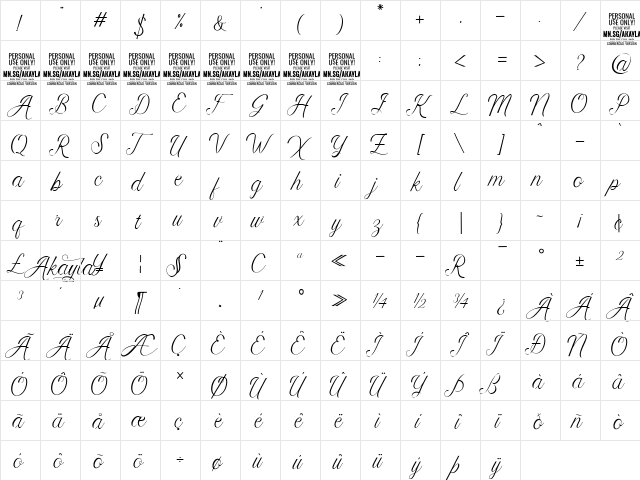
Akayla Script PERSONAL USE Regular
Design Context for Akayla Script PERSONAL USE Typeface
Akayla Script PERSONAL USE flows with the natural rhythm of handwritten lettering, making it ideal for designs that call for warmth and personal expression.
Font Pairing: Combine Akayla Script PERSONAL USE with a simple geometric sans for maximum contrast — the tension between flowing curves and clean structure is a classic typographic pairing.
Pro Tip: Pair Akayla Script PERSONAL USE with a clean sans-serif for supporting text. The contrast between fluid script and geometric structure creates an elegant typographic hierarchy.